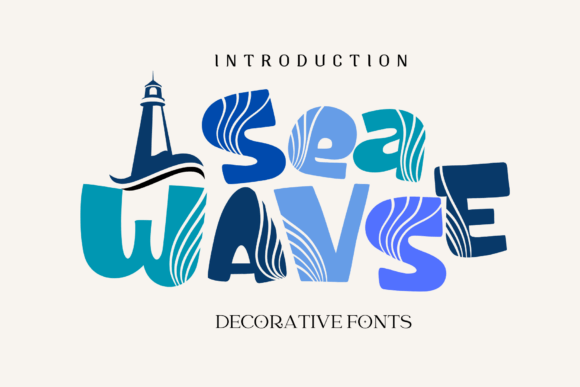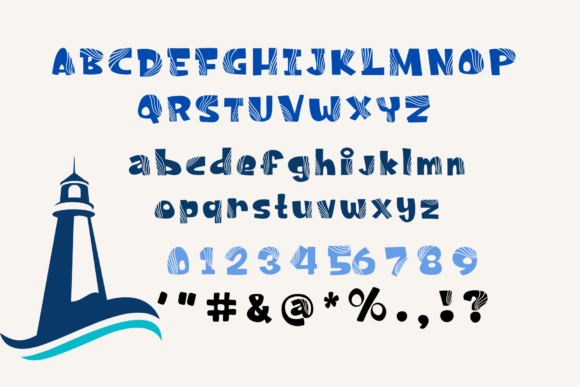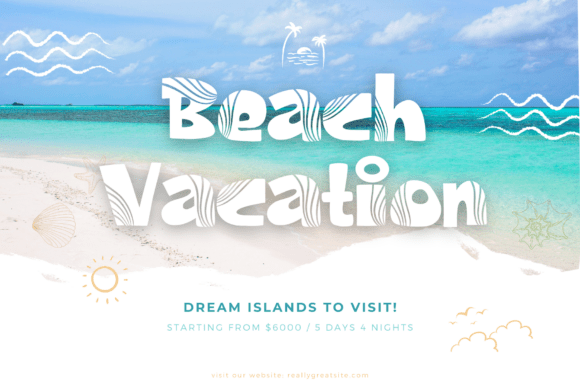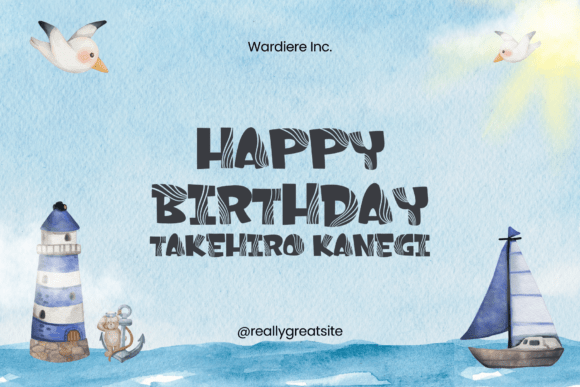
Sea Waves Font
About the Sea Waves Font
Welcome to the world of Sea Waves Font, a typeface that will inspire your next great project. Sea waves is a Decorative fonts. You can use it for taking notes, writing a diary, or making greeting cards. However, you can still use it for other designs, such as banners, content, mugs, cards, shirts, stationery, social media posts, and more!
Sea Waves Font Usage Examples